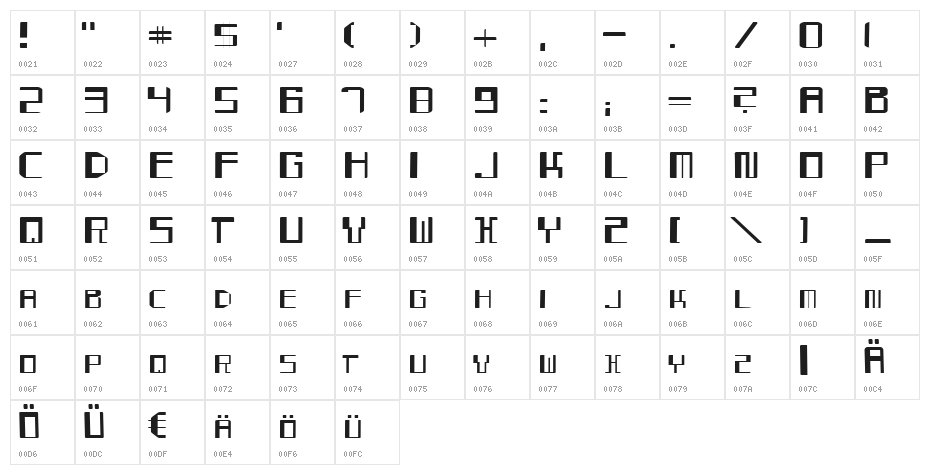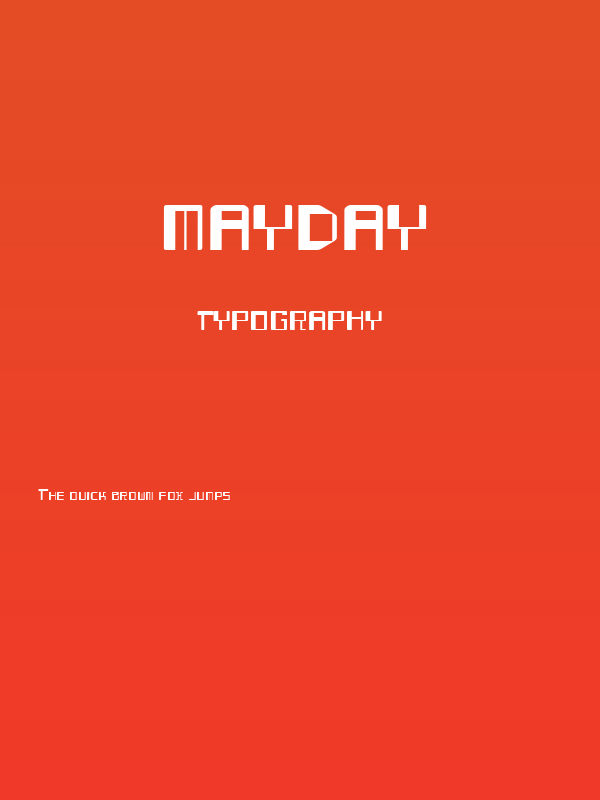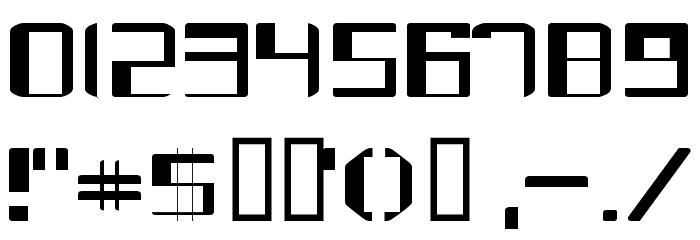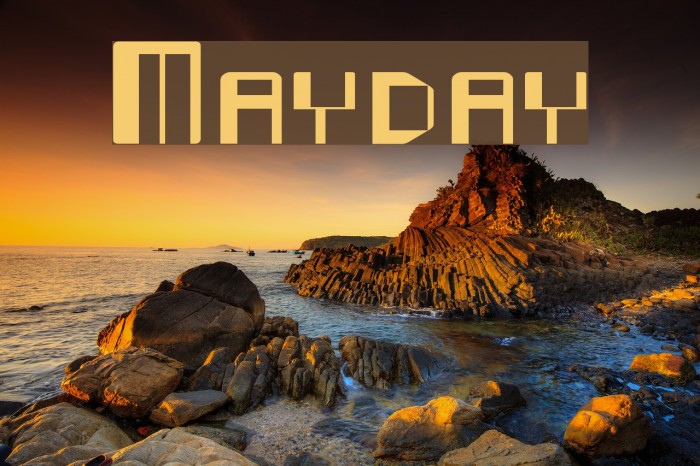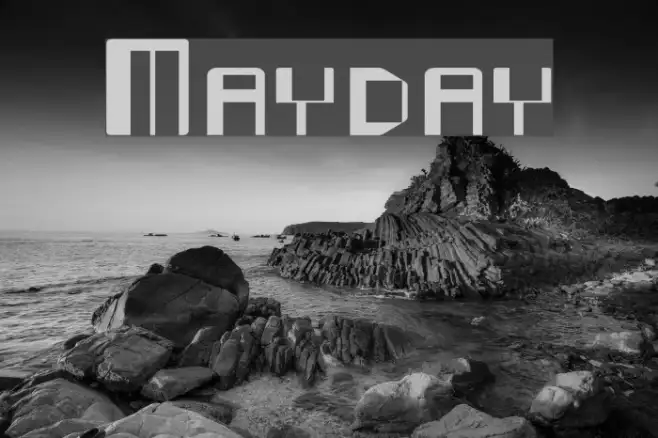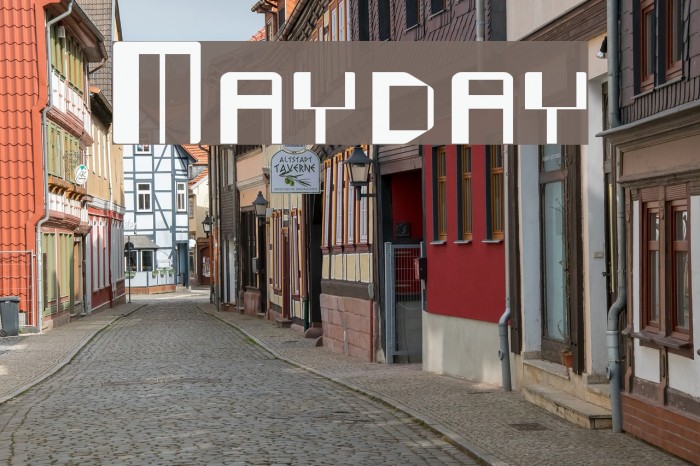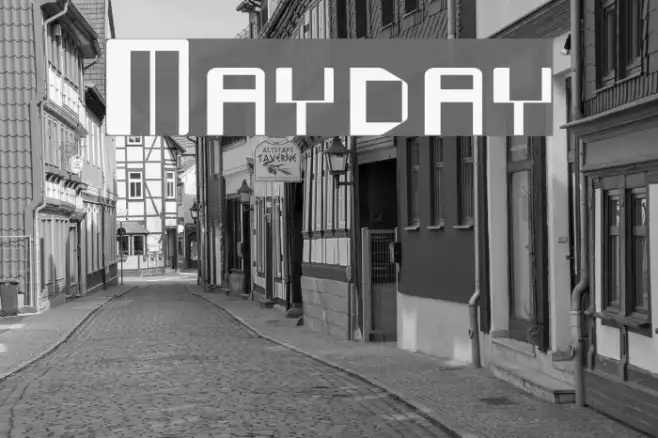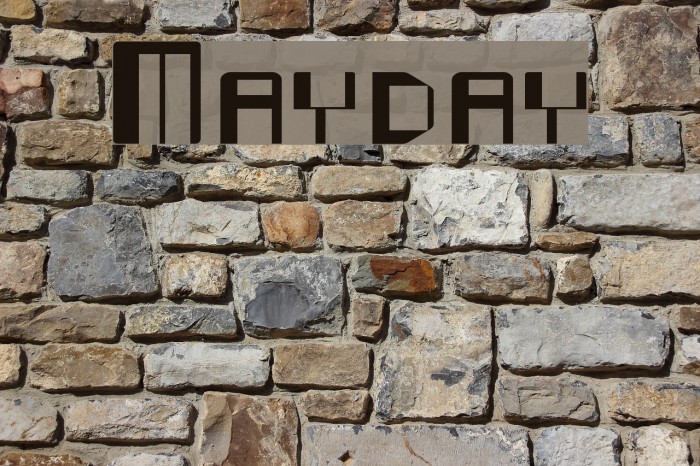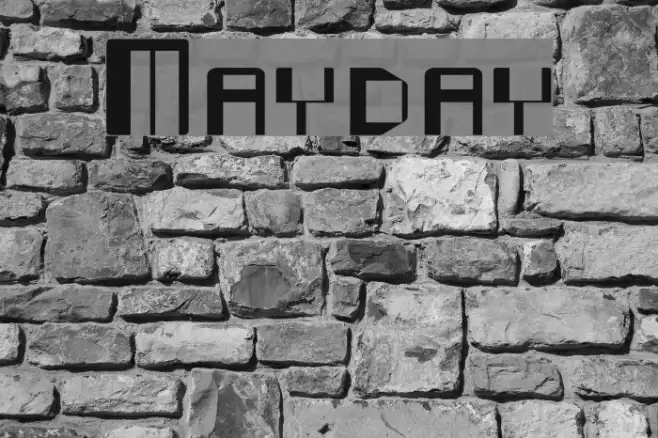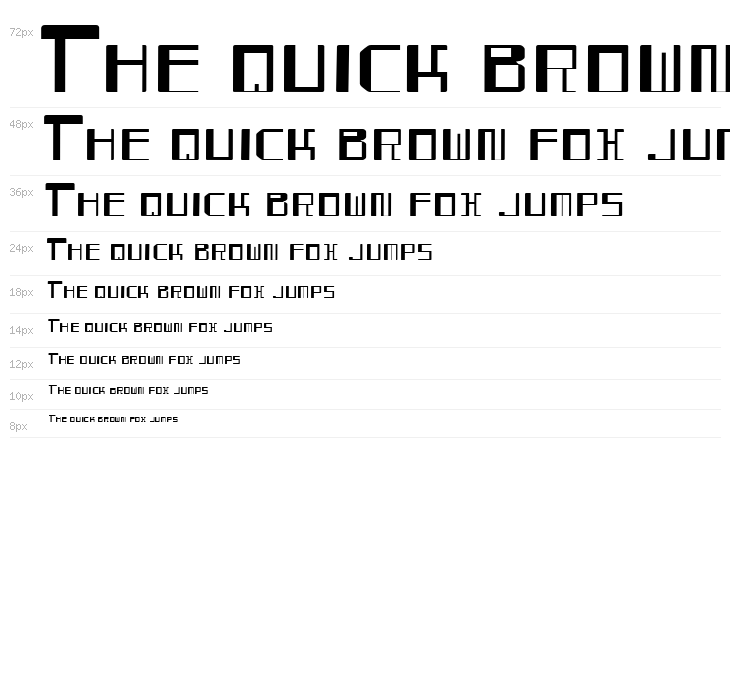
Mayday Font
This font features a modern, geometric design with a distinct digital aesthetic. The characters are constructed with sharp, angular edges and a blocky appearance, reminiscent of digital displays or stencil cutouts. The uppercase letters are bold and commanding, while the lowercase letters maintain a consistent style, ensuring readability. Numbers and special characters follow the same geometric theme, providing a cohesive look across all glyphs. The font's unique style makes it suitable for projects that require a futuristic or tech-oriented feel.
| Proposed Projects | Ideal for tech branding, digital interfaces, video game titles, and futuristic posters. |